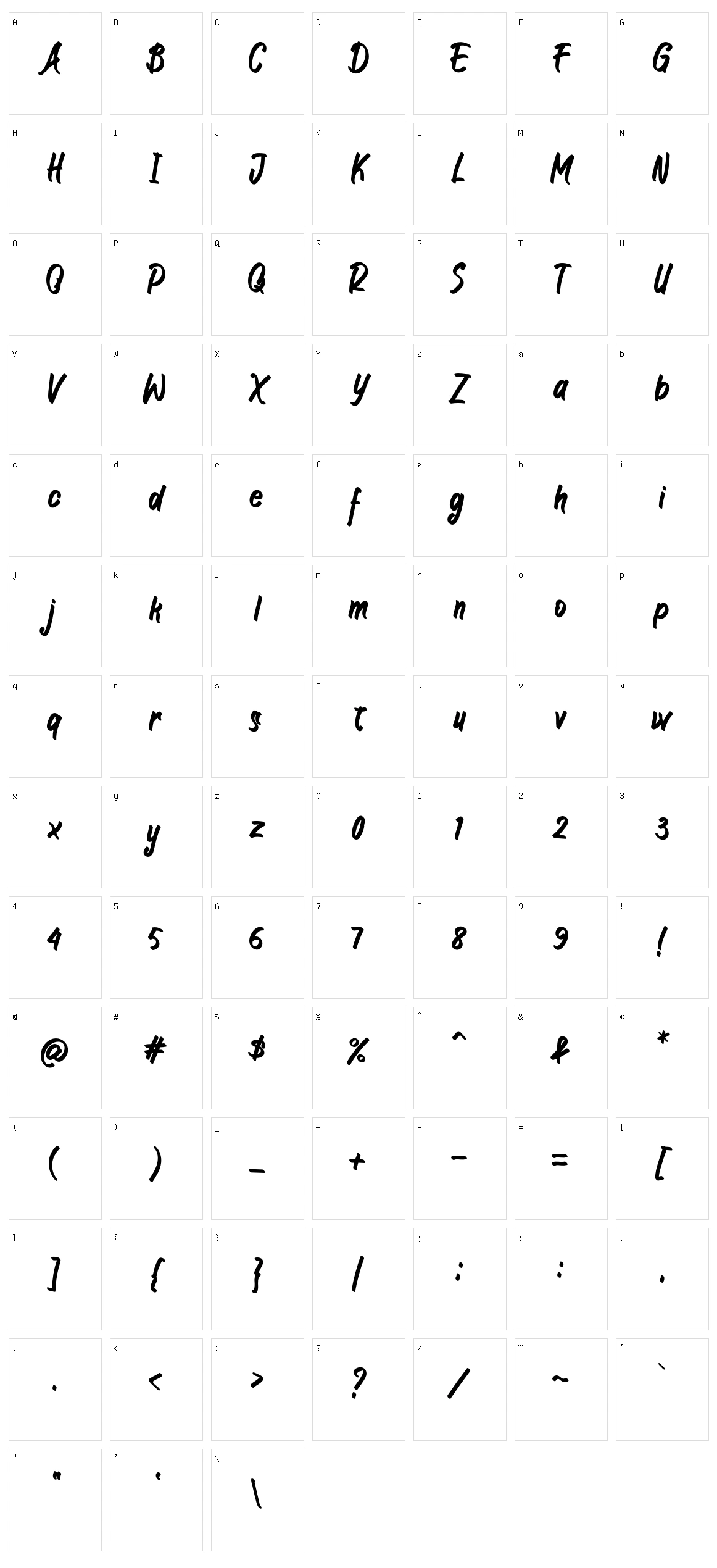
The free font Jiangkrik is carefully designed by Motokiwo, showcasing a thoughtful balance of creativity and usability and falls under the Script font style. When you download the ZIP file, it contains only 21.46 KB of font files, making it lightweight and quick to download. Please review the license details below to understand permitted usage and distribution rights. If license information is not available, we recommend using this font for personal projects only or contacting the author directly for commercial usage permissions.
Foundry : Motokiwo Design
Designer : Anton Cahyono